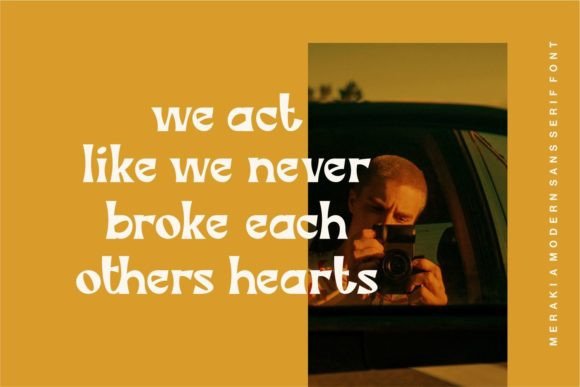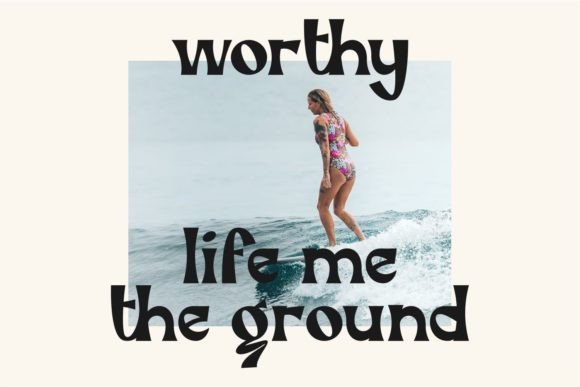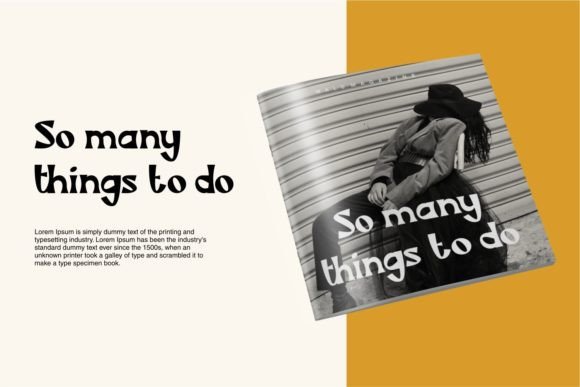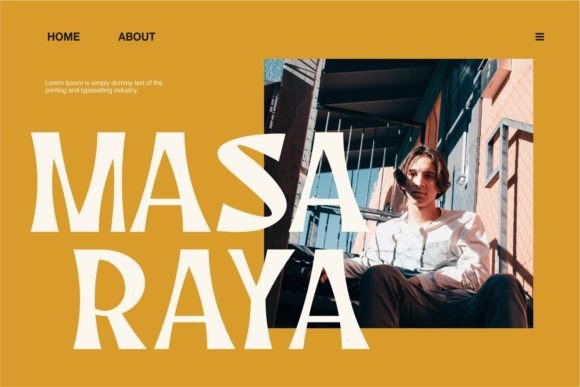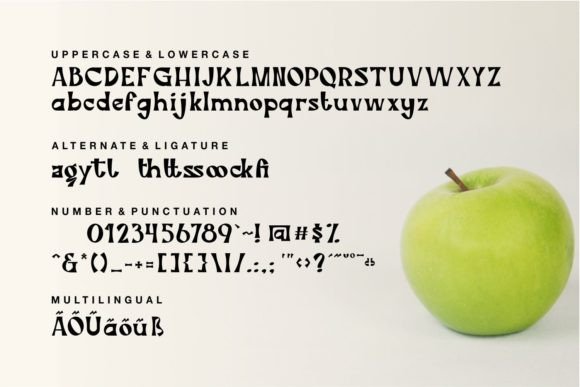
Introduction to Meraki Font
Meraki is a sleek and modern sans-serif font that exudes sophistication and elegance.
With its clean lines and sharp angles, Meraki is the perfect choice for those who want to make a bold statement with their typography This font is perfect for branding, editorial design, and high-end advertising campaigns.
Key Features of Meraki Font
Why Choose Meraki Font?
Meraki Font offers exceptional quality and versatility, making it a valuable addition to your design toolkit. Whether you’re creating for personal projects or commercial use, Meraki Font delivers professional results.